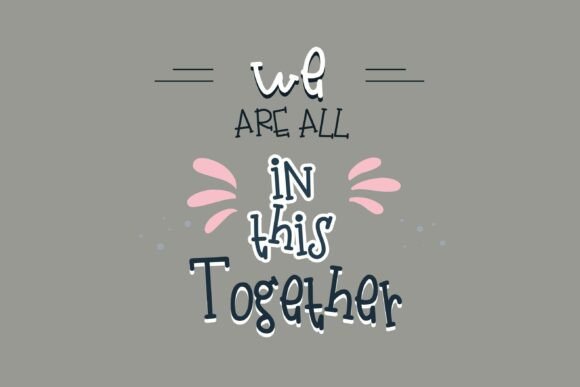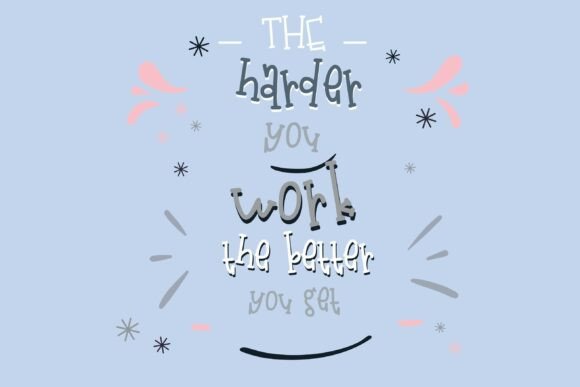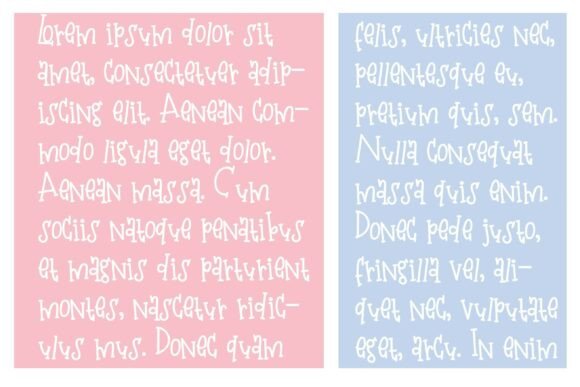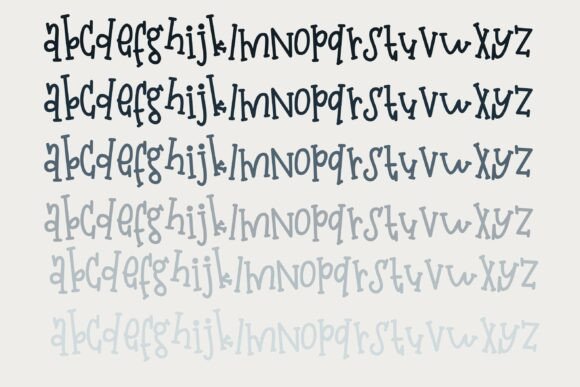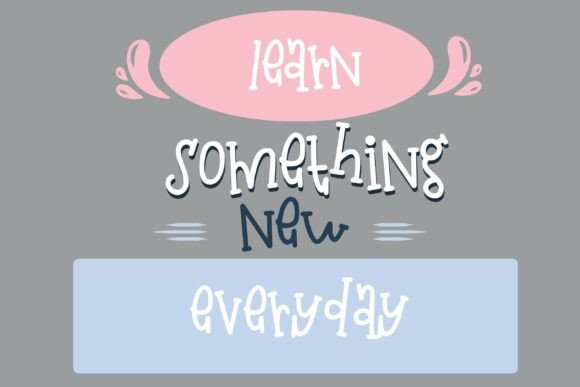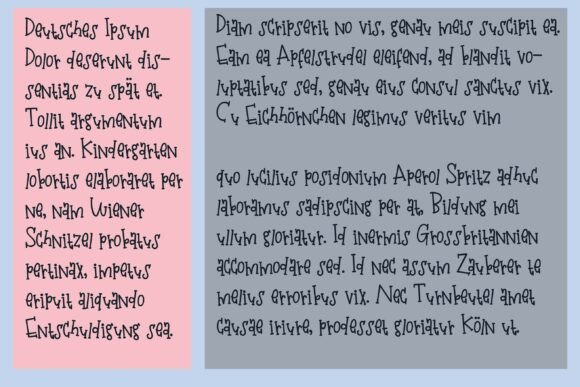
The Clap Back Font: A Bold, Hand-Crafted Serif with a Cheeky Edge
I’ll never forget the time I was working on a children’s book design project, and my client asked me to create a playful, storybook-style font to match the illustrations. I scoured the internet for the perfect font, but nothing seemed quite right. That was until I stumbled upon the Clap Back font. Its bold, hand-crafted serifs and quirky personality instantly won me over. In this article, I’ll share my experience with Clap Back, its features, and how to make the most of this amazing font.
An Honest Review of Clap Back Font
- ✨ Unique, hand-crafted feel: Clap Back’s uneven strokes and quirky personality give it a one-of-a-kind, storybook vibe.
- ✅ Perfect for children’s designs: The font’s playful, energetic feel makes it ideal for kids’ books, educational content, and playful branding.
- ✅ Highly legible: Despite its bold, irregular strokes, Clap Back remains surprisingly easy to read, even at smaller sizes.
While Clap Back is an amazing font, it’s not without its quirks. For example:
- ⚠️ Limited use in formal contexts: Clap Back’s playful personality might not be suitable for more formal or professional designs.
- 🤔 Some glyphs may require adjustment: Depending on the context, some glyphs (like the ampersand or exclamation mark) might require manual adjustment for optimal spacing.
The Backstory Behind Clap Back Font
Clap Back was designed by a talented type designer who wanted to create a font that captured the playful, whimsical spirit of childhood. Inspired by vintage children’s books and playful illustrations, Clap Back is the perfect blend of bold, quirky personality and legible, easy-to-read design.
| Font Name | Clap Back Font |
| Author | Illustration Ink |
Q: Is Clap Back suitable for body text?
While Clap Back is highly legible, its bold, playful personality might make it better suited for headlines or titles. For body text, you might prefer a more traditional, serif font.